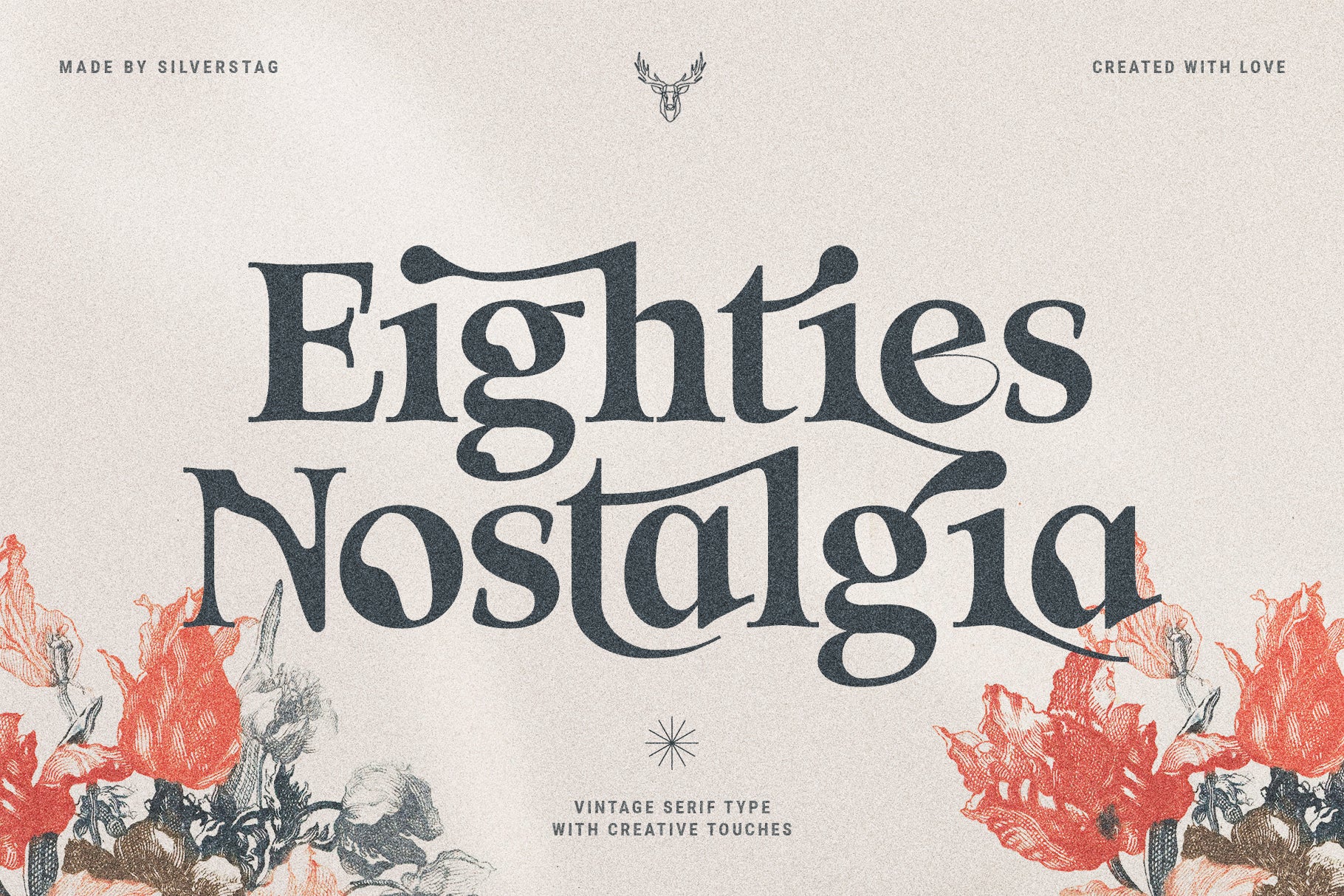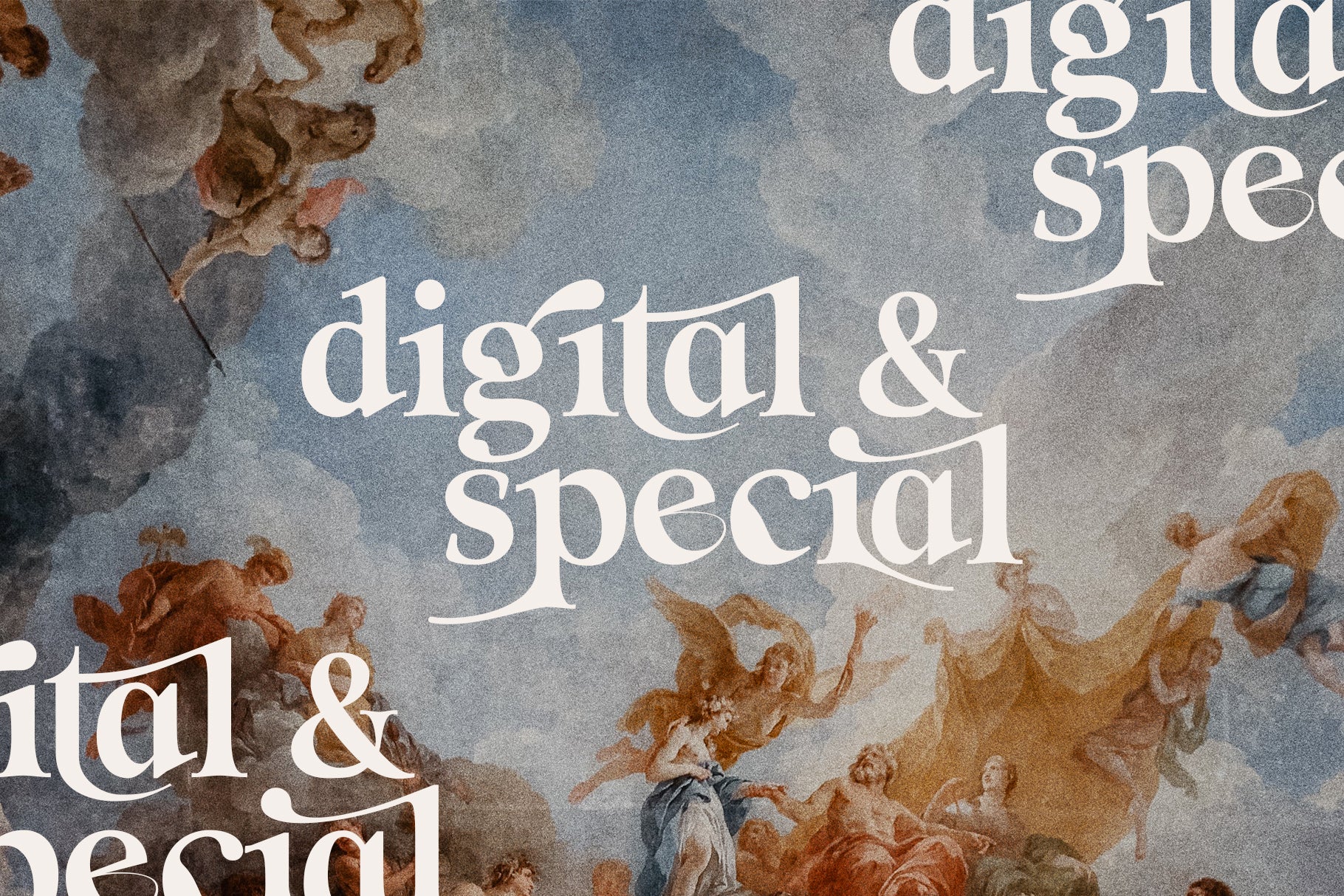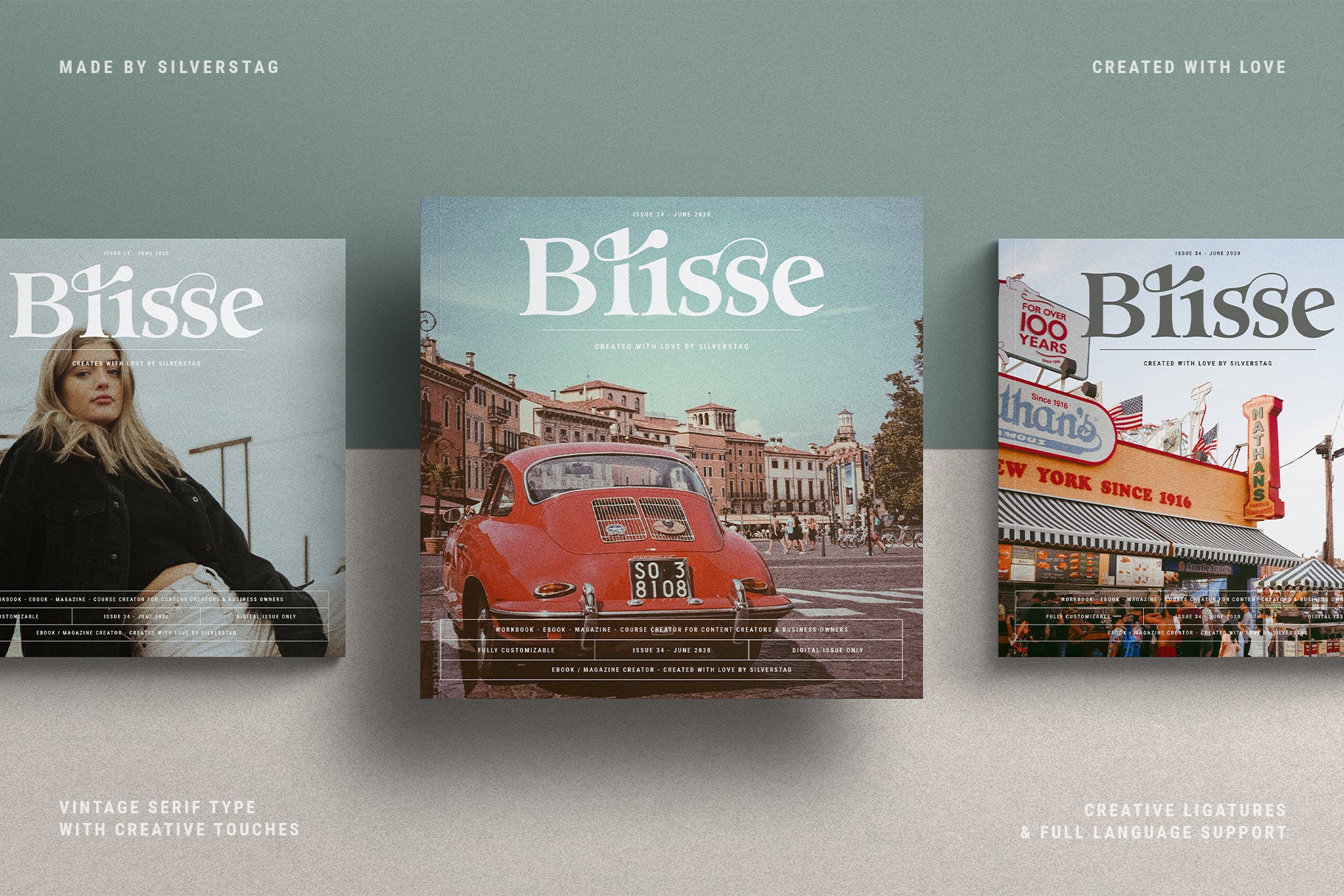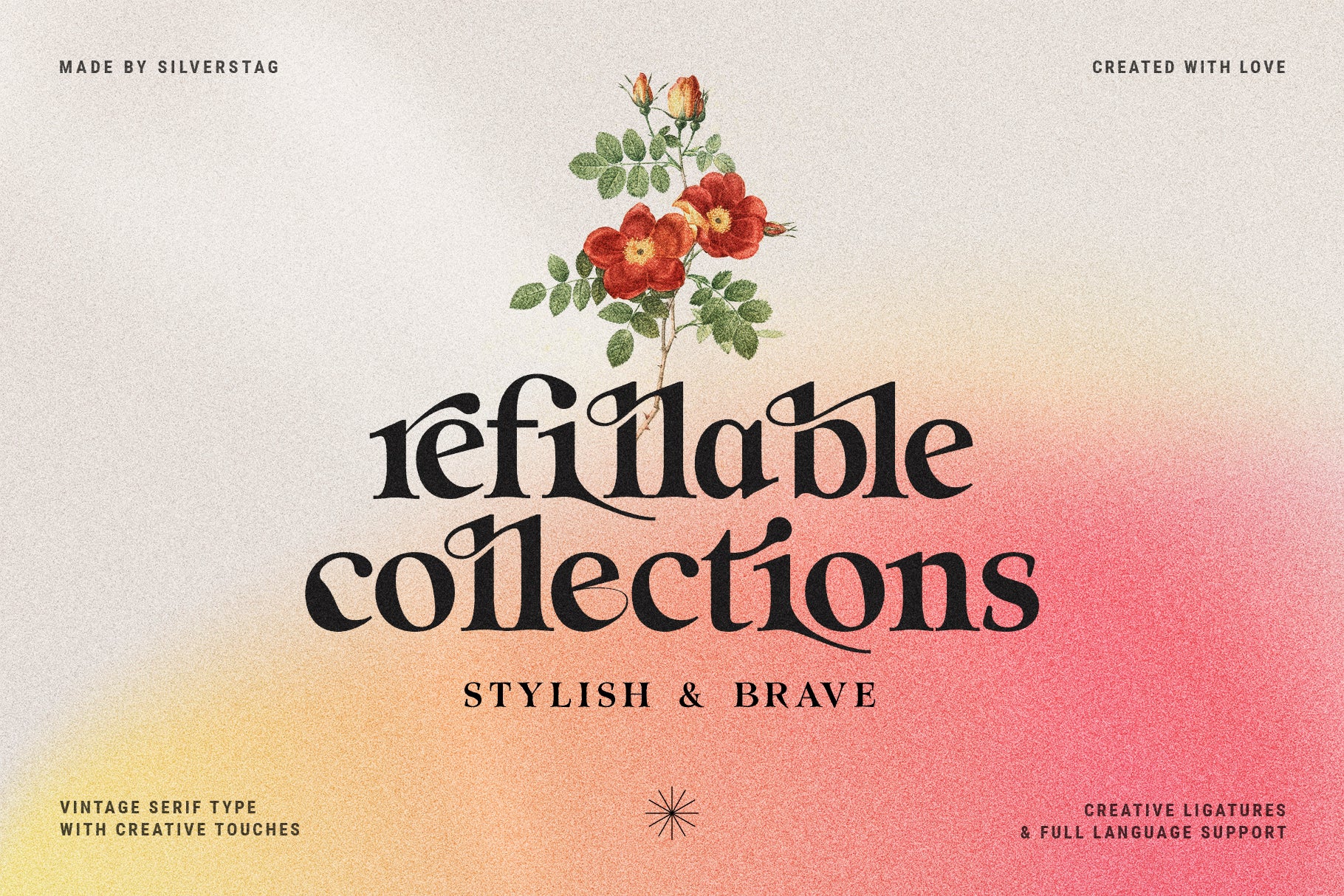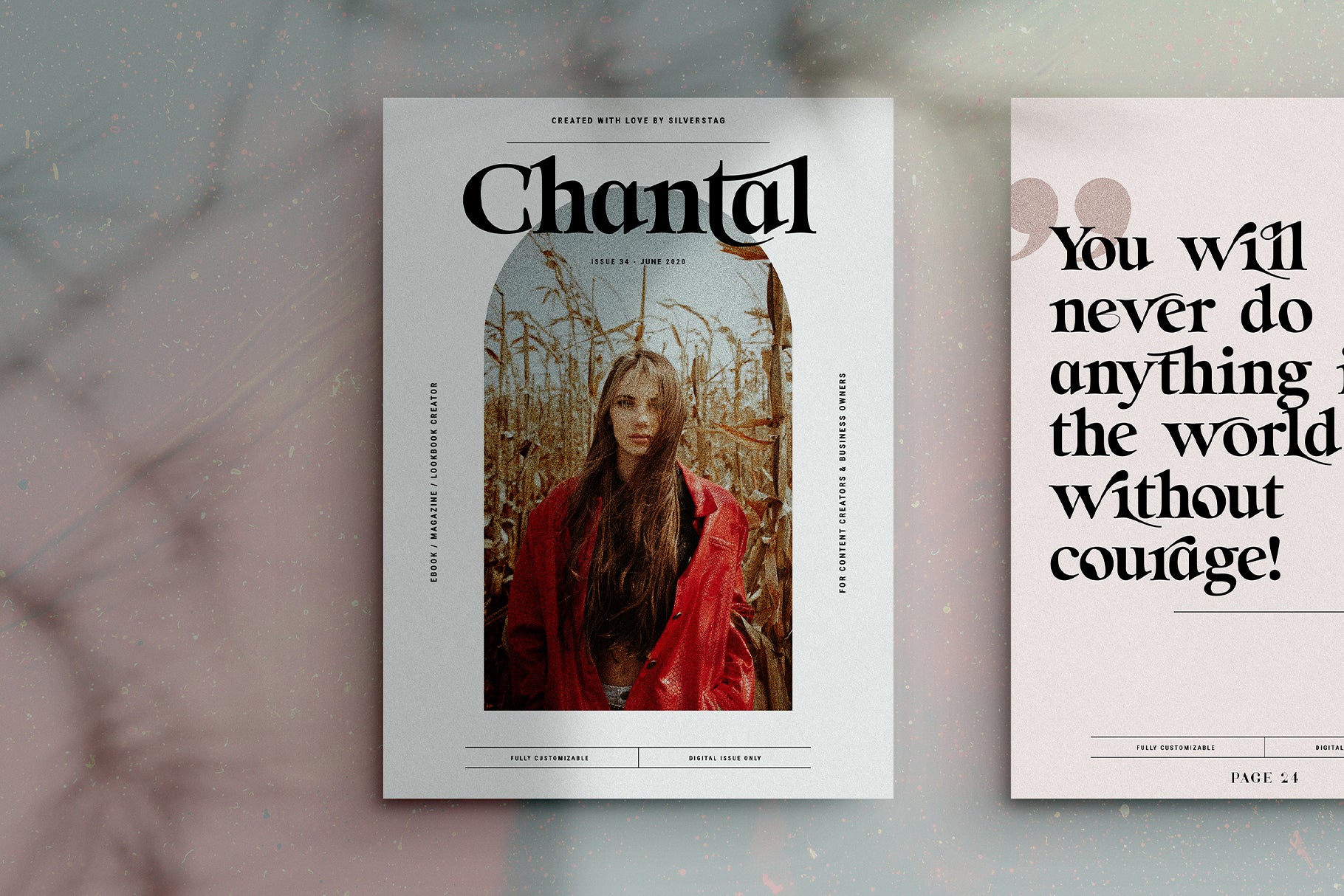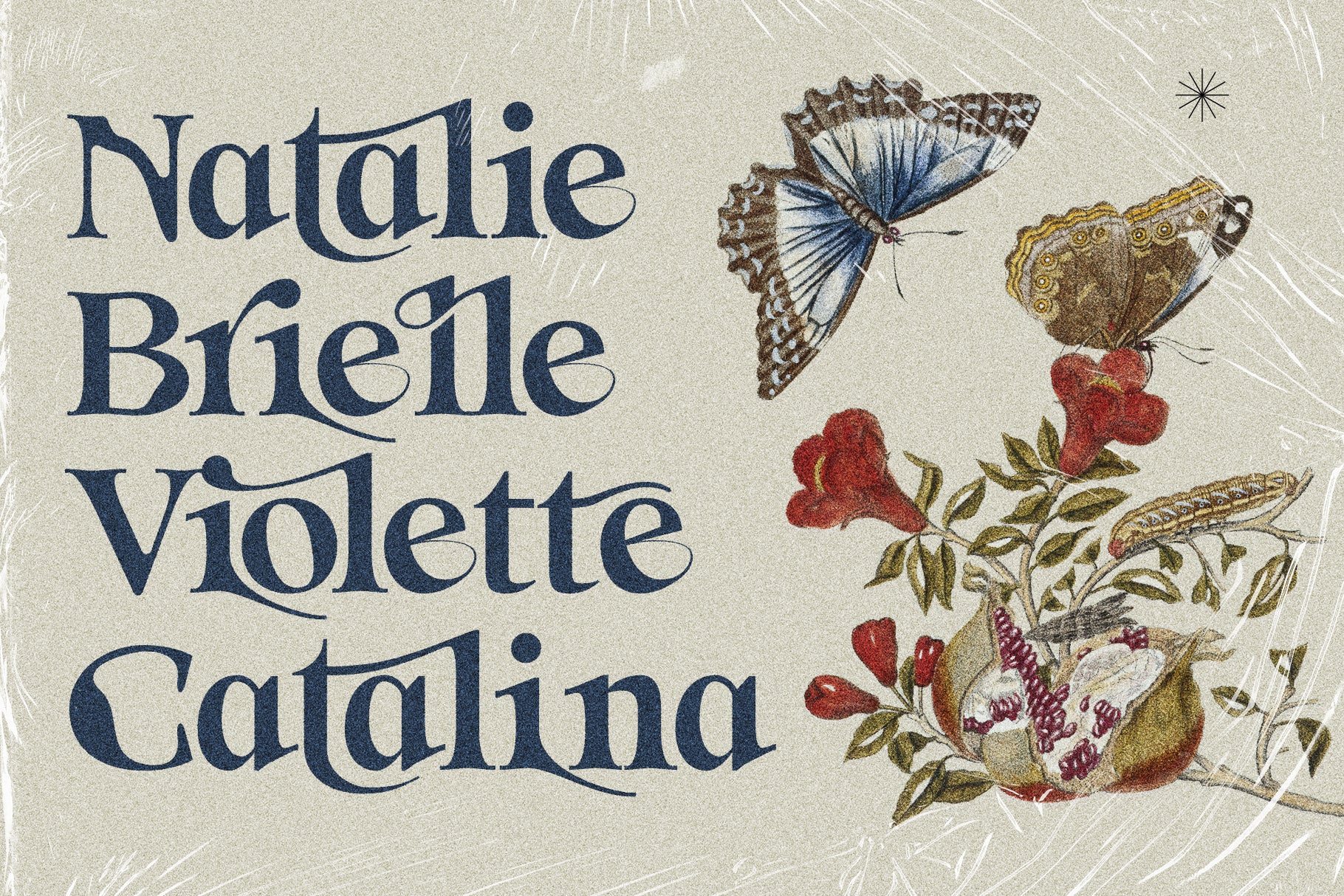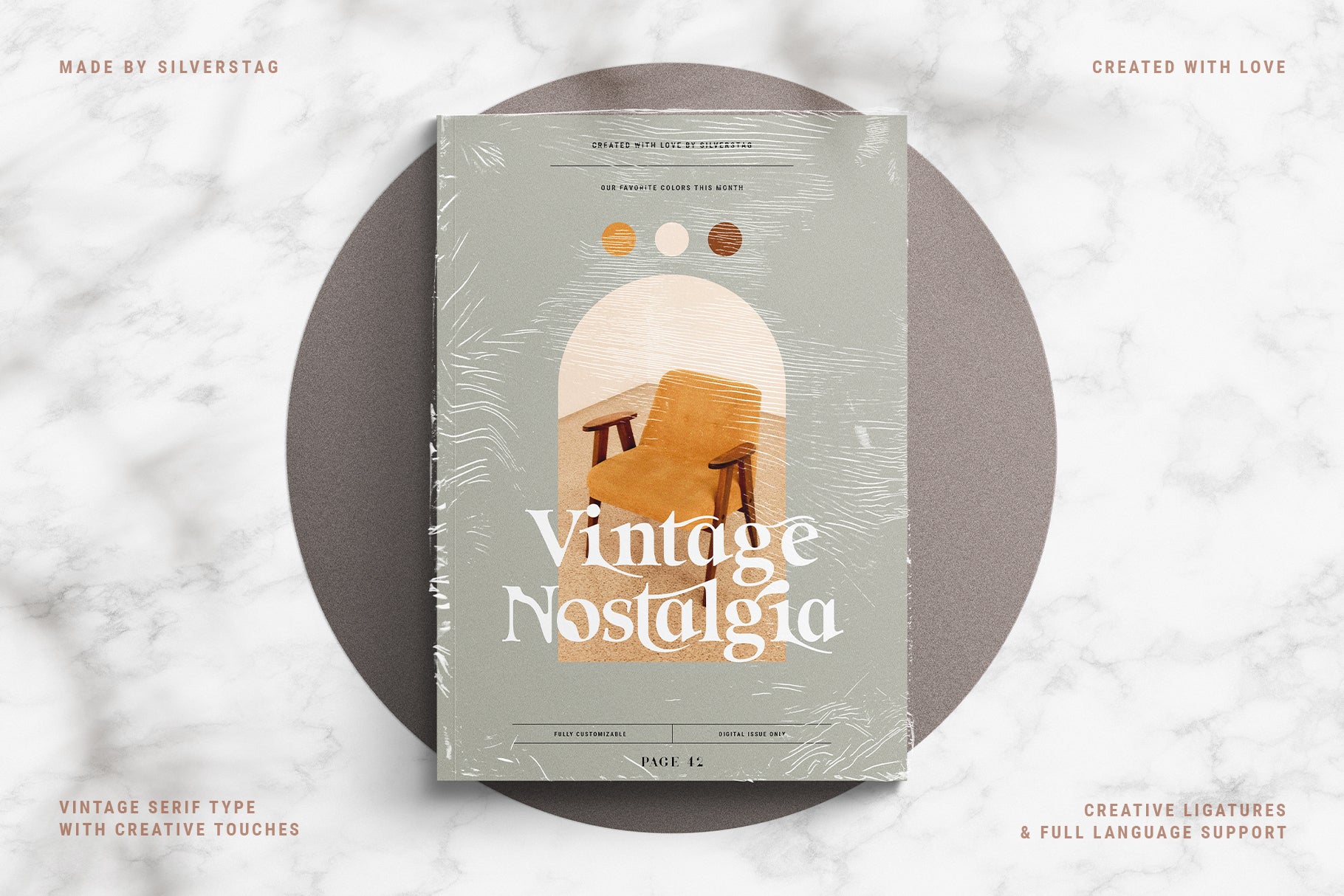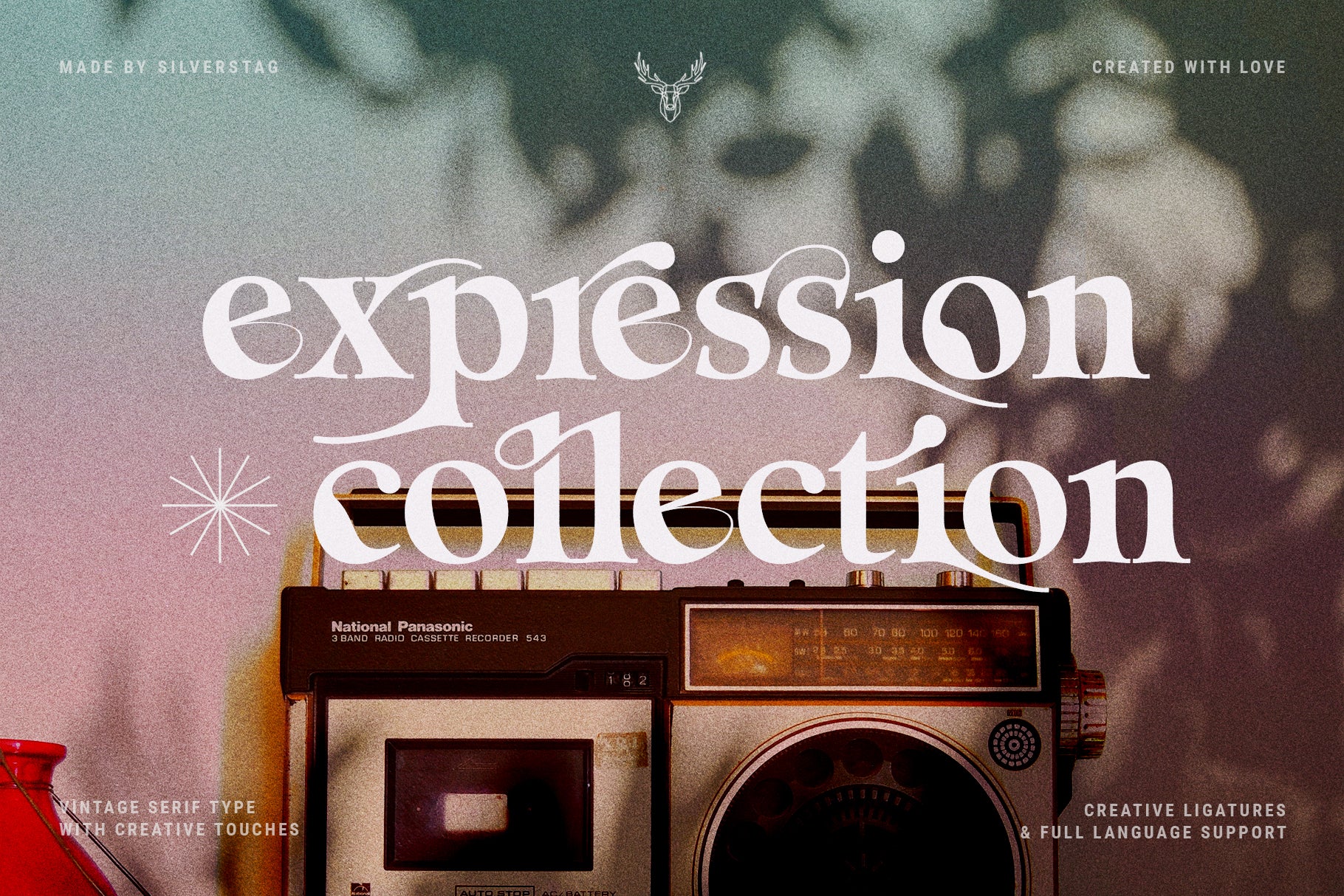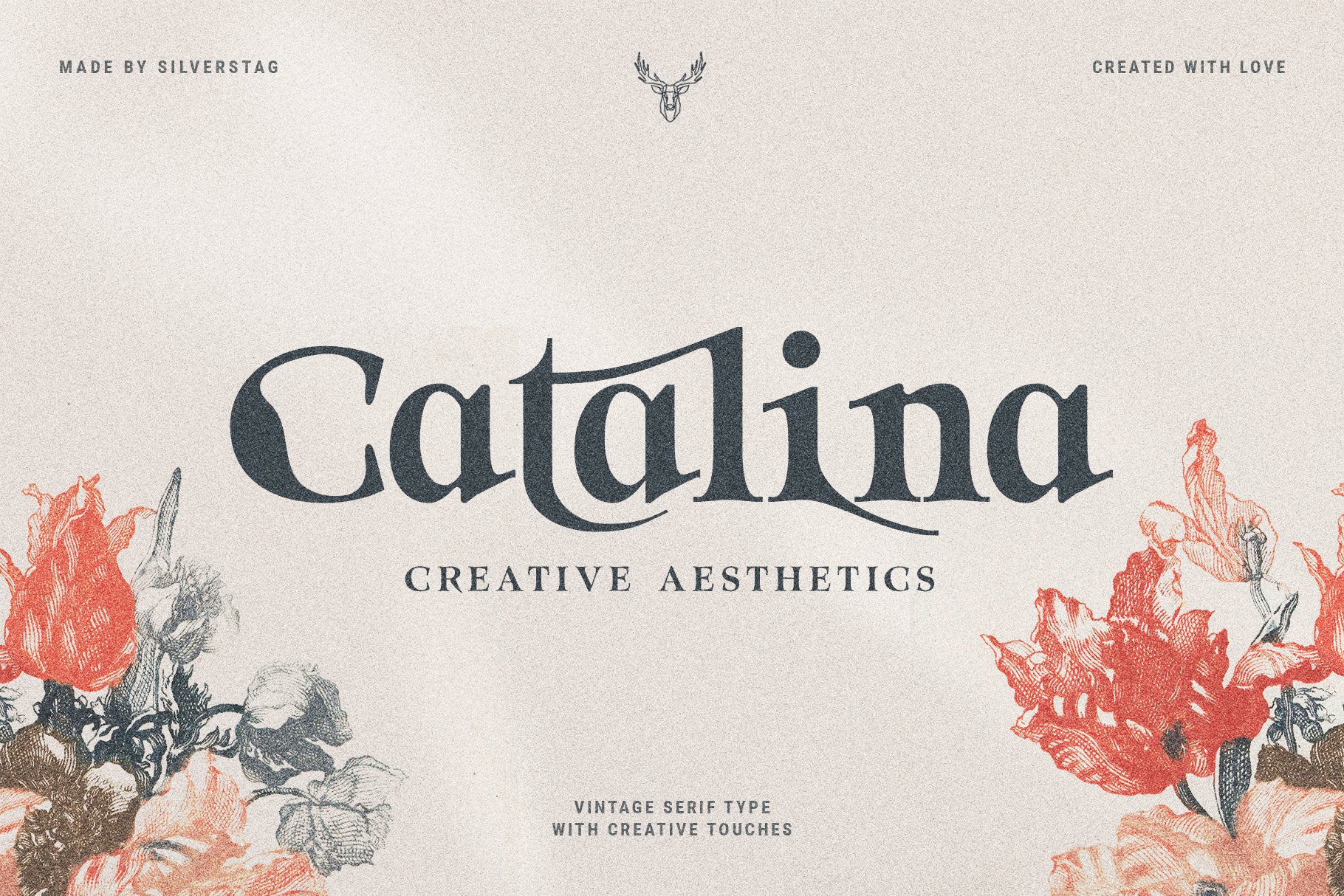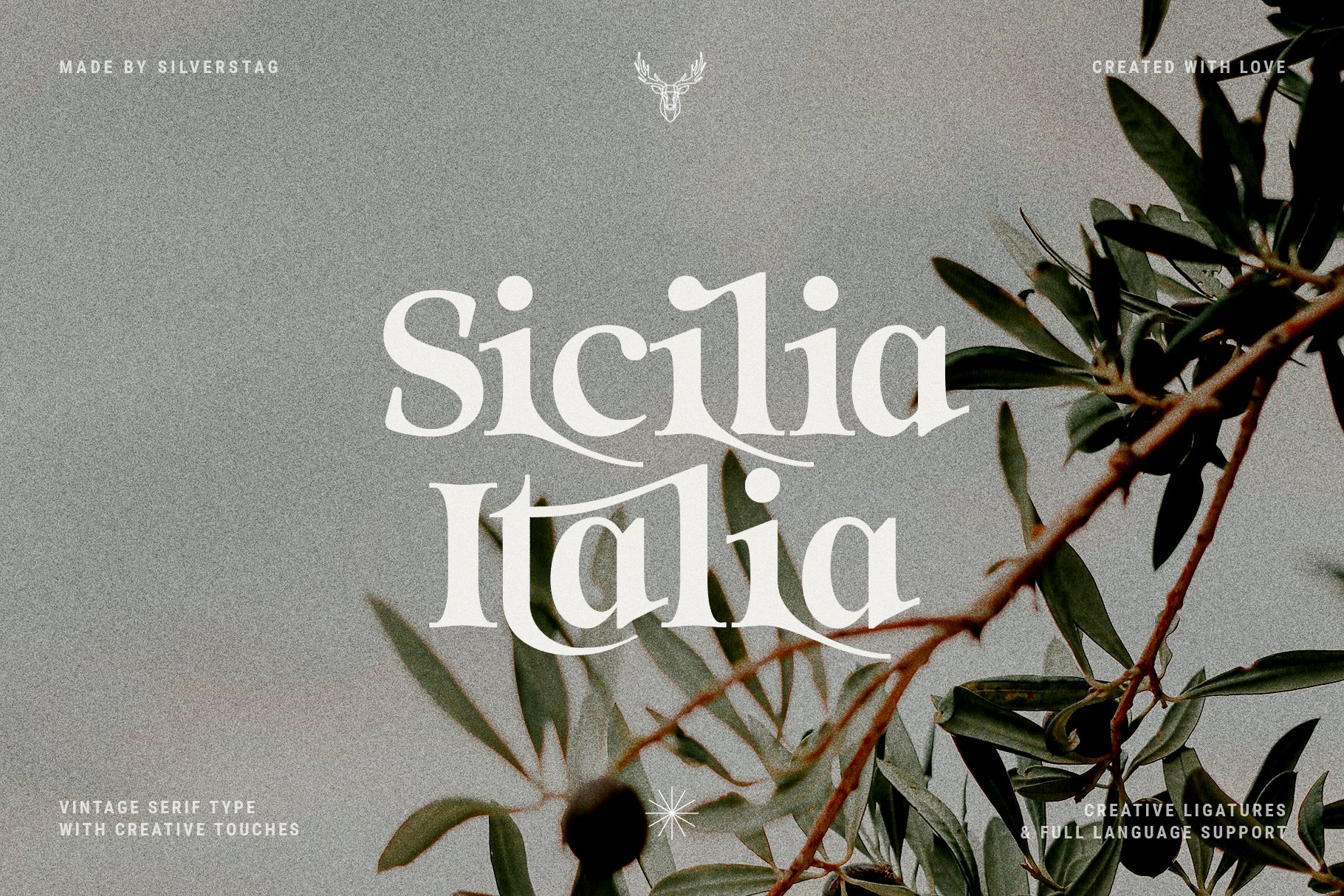
Eighties Nostalgia - Ligature Serif Font
Step into a world of retro charm with Eighties Nostalgia, a bold and edgy ligature serif font designed to capture the spirit of a vibrant era. Born from a creative wave of nostalgia and endless Pinterest inspiration, this typeface blends handcrafted authenticity with a modern twist, making it perfect for...
Step into a world of retro charm with Eighties Nostalgia, a bold and edgy ligature serif font designed to capture the spirit of a vibrant era. Born from a creative wave of nostalgia and endless Pinterest inspiration, this typeface blends handcrafted authenticity with a modern twist, making it perfect for anyone looking to infuse their designs with unique character and timeless appeal.
Every letter and ligature in Eighties Nostalgia has been meticulously crafted to fit seamlessly with others, offering a cohesive and dynamic look. This font includes two full sets of uppercase and lowercase letters, over 140 alternates and ligatures, numerals, punctuation, full language support, and a Web Font Kit. Whether you’re designing bold posters, memorable logos, stylish websites, or standout branding, Eighties Nostalgia brings an unmistakable vintage edge to your work.
Celebrate bold individuality and make your projects unforgettable with Eighties Nostalgia!
Eighties Nostalgia serif on three Blisse magazine covers with a red vintage car and a New York diner
Eighties Nostalgia serif on a Chantal magazine cover beside a pink courage quote poster
Eighties Nostalgia serif Vintage Nostalgia poster in a circle on marble under plastic wrap
Eighties Nostalgia serif Catalina creative aesthetics on cream with red tulip illustrations
Eighties Nostalgia serif two weight list of Clarisse Natalie Violette Chantal over an orange camper van
Eighties Nostalgia serif psychedelic reality over a vintage photo of two people reading in a booth
Eighties Nostalgia serif Raleigh North Carolina in white over teal with a chairlift illustration
Eighties Nostalgia serif light effects and psychedelics with a Polaroid Pronto600 camera above
Eighties Nostalgia serif digital essentials in blue with a layered shadow and a vintage telephone handset
Eighties Nostalgia serif spelling digital and special over a Baroque ceiling fresco with cherubs
Eighties Nostalgia serif refillable collections stylish and brave over a pink gradient with a red rose
Eighties Nostalgia serif glyph showcase stacking Natalie Brielle Violette Catalina with a butterfly
Eighties Nostalgia serif expression collection over a retro radio cassette recorder in pink light
Eighties Nostalgia serif spelling Sicilia Italia over a grey ground with an olive branch
Eighties Nostalgia serif on a Natalie In Paris book cover with an Eiffel Tower photo on stacked books
Eighties Nostalgia serif Orbital creative aesthetics in gold on a black background
Eighties Nostalgia serif on a Seychelles travel poster with a blue island and beach illustration
Eighties Nostalgia serif midnight revival over a dark photo collage with a Coca Cola sign